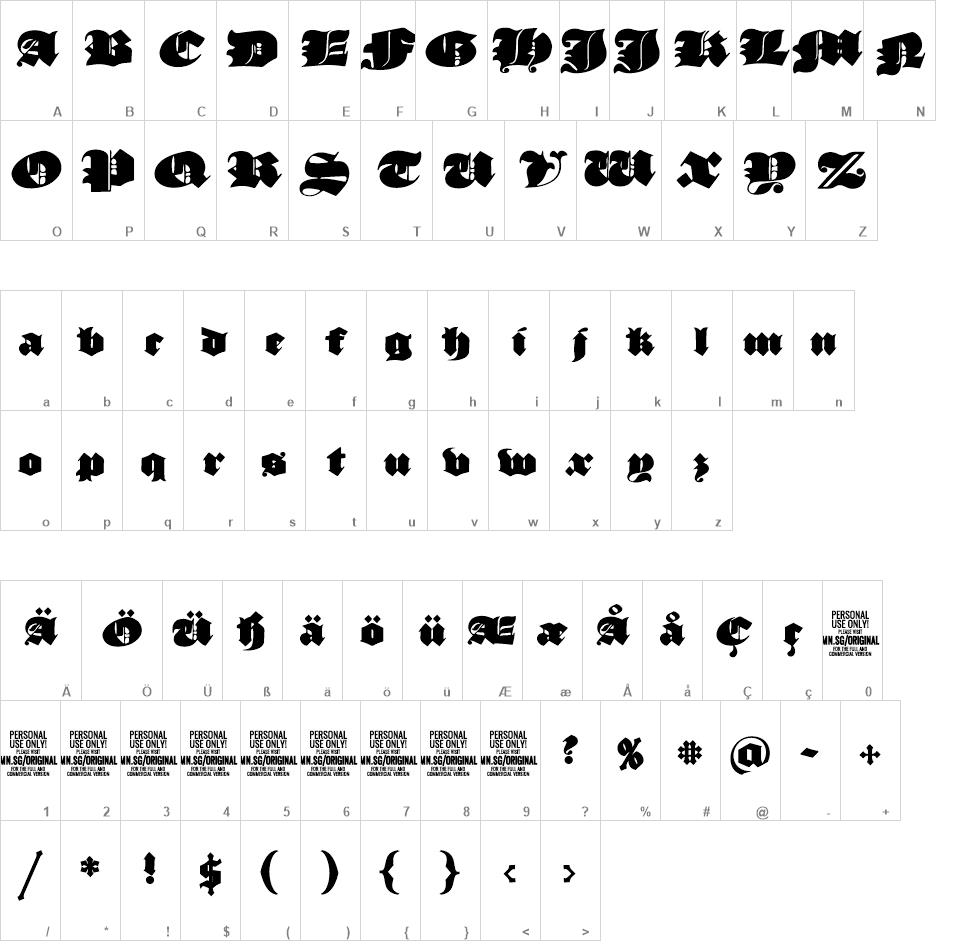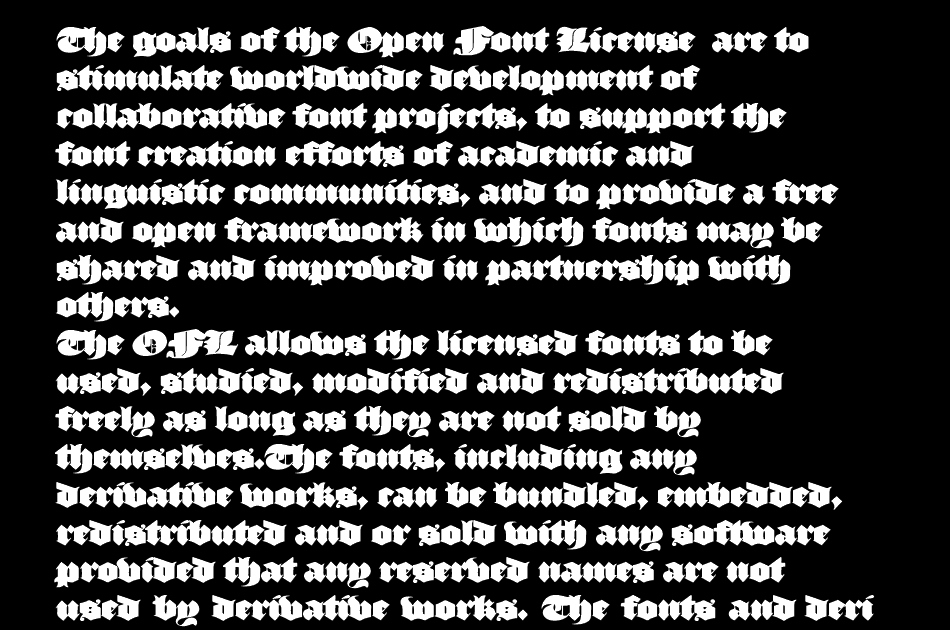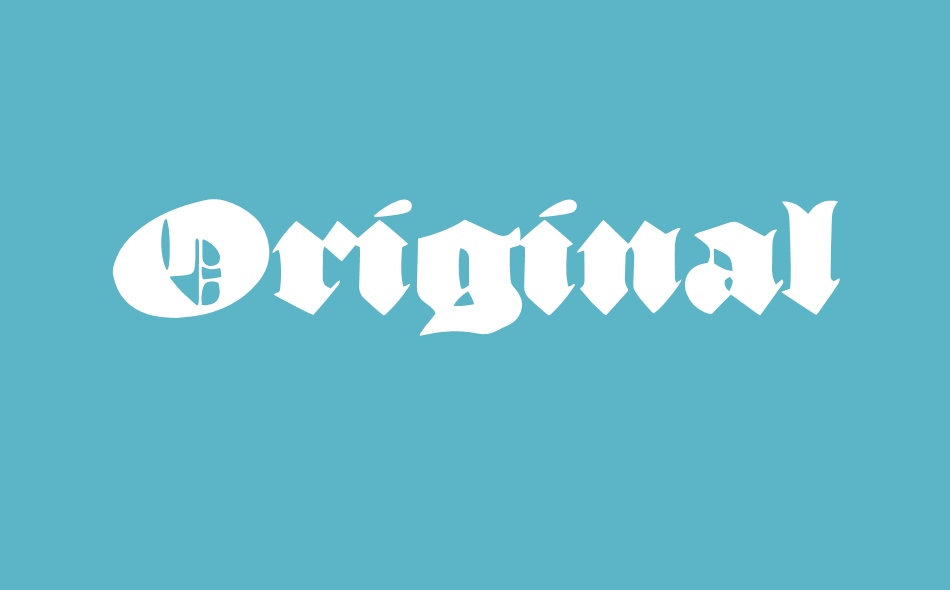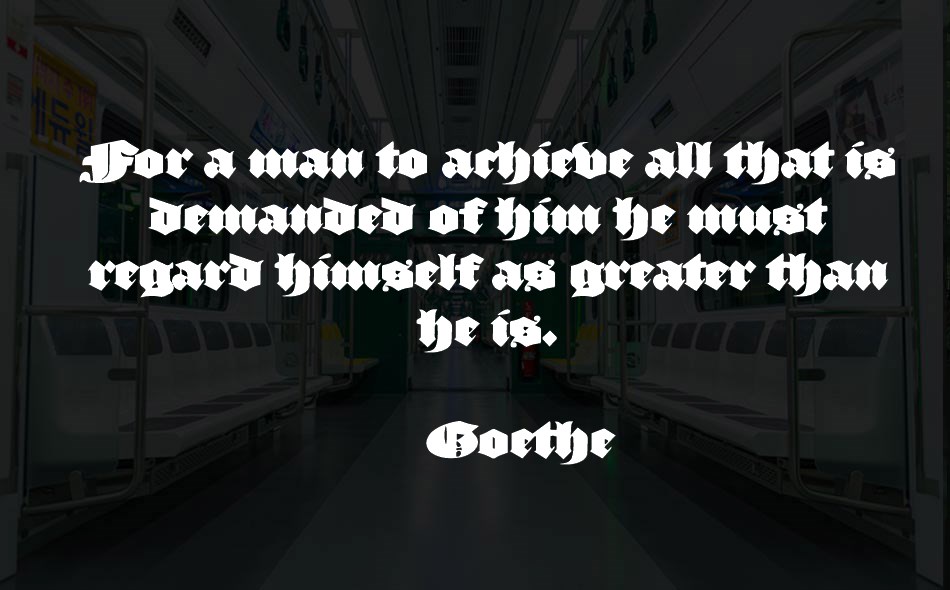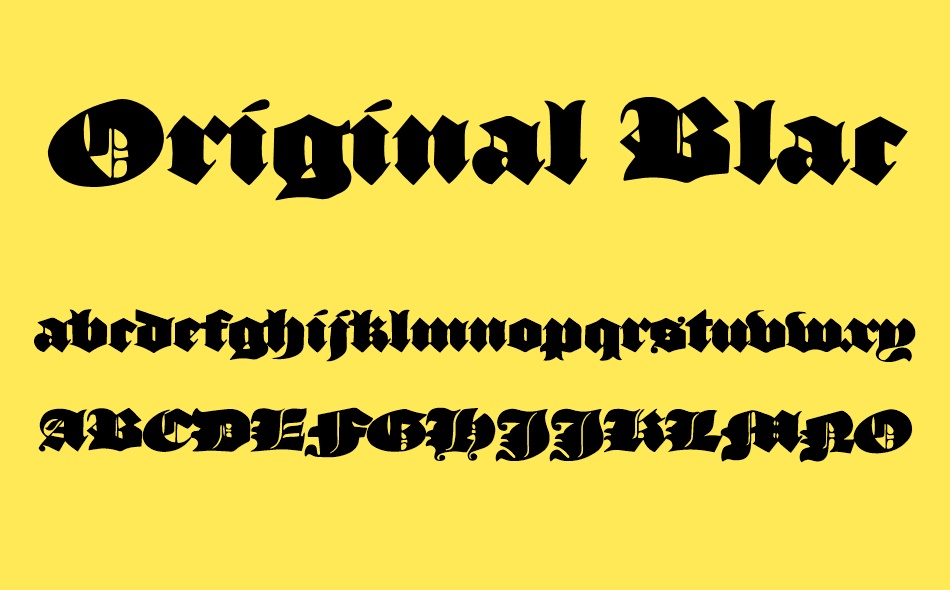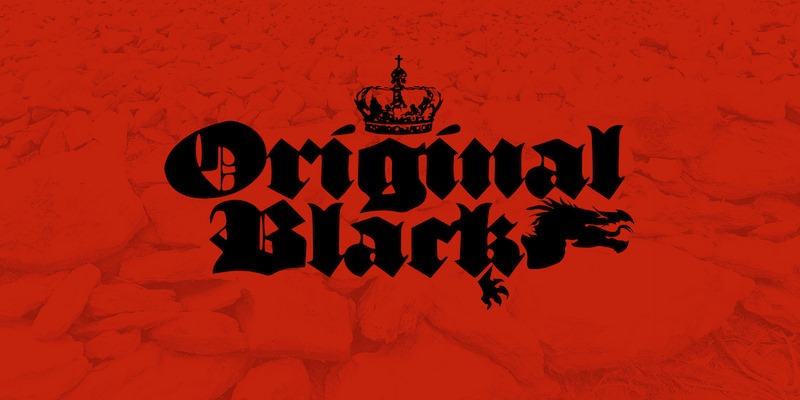
Original Black font
Original is an extra-bold blackletter typeface.
Put together and refined by Mans Greback between 2018 and 2021, this Old-English style lettering is drawn according to historical literature on Gothic script. As a Germanic texture type, it has big capitals and black calligraphy strokes, a geometric contour with decorative details, as well as styles of shadow and shade.
Use it for a logotype or in a medieval context where you want a genuine, yet legible, typography.